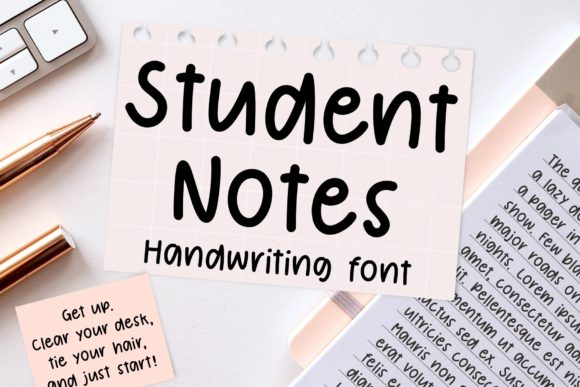
**Student Notes Font: Handwritten, Chalkboard-inspired Beauty for Your Designs**
Unleash the power of heartfelt expression and transform your designs into captivating works of art with Student Notes Font, a script font family born from the essence of creativity and meticulously crafted to capture the beauty of handwritten notes. Immerse yourself in the world of heartfelt expressions and creativity as you explore the endless possibilities of Student Notes Font, the ultimate choice for chalkboard quotes, teaching materials, and any project yearning for a personal and realistic touch.
**Embrace the Authenticity of Handwritten Charm**
With Student Notes Font, authenticity takes center stage. Its carefully crafted characters exude the charm of handwritten notes, instilling a sense of genuine connection and relatability in your designs. Each stroke, each curve, and each letterform is meticulously designed to capture the essence of free-flowing penmanship, adding a touch of personal flair that resonates with your audience.
**Transport Your Designs to the Blackboard**
Harness the power of nostalgia and transport your designs to a classic chalkboard setting with Student Notes Font. Its bold, confident strokes evoke the familiar ambiance of a traditional schoolhouse, igniting memories of lessons learned and knowledge shared. Whether you're creating educational materials, inspirational quotes, or eye-catching social media posts, Student Notes Font effortlessly recreates the charm and authenticity of a chalkboard, leaving an indelible mark on your audience's minds.
**Create Designs that Speak to the Heart**
With Student Notes Font, your designs transcend mere aesthetics and become vessels of emotional connection. Its warm and inviting style has the uncanny ability to evoke a sense of nostalgia, familiarity, and trust. Your audience will feel an instant bond with your designs, as if they are being personally addressed. Whether you're crafting heartfelt messages, heartfelt quotes, or heartfelt stories, Student Notes Font adds a layer of emotional depth that resonates with your audience on a deeper level.
**Endless Creative Possibilities Await**
Unleash your creativity and explore the boundless possibilities that Student Notes Font presents. Its versatility extends far beyond chalkboard quotes and teaching materials. Experiment with logos, branding, social media graphics, invitations, and countless other projects, infusing each one with a touch of handwritten charm. The possibilities are endless, limited only by the depths of your imagination.